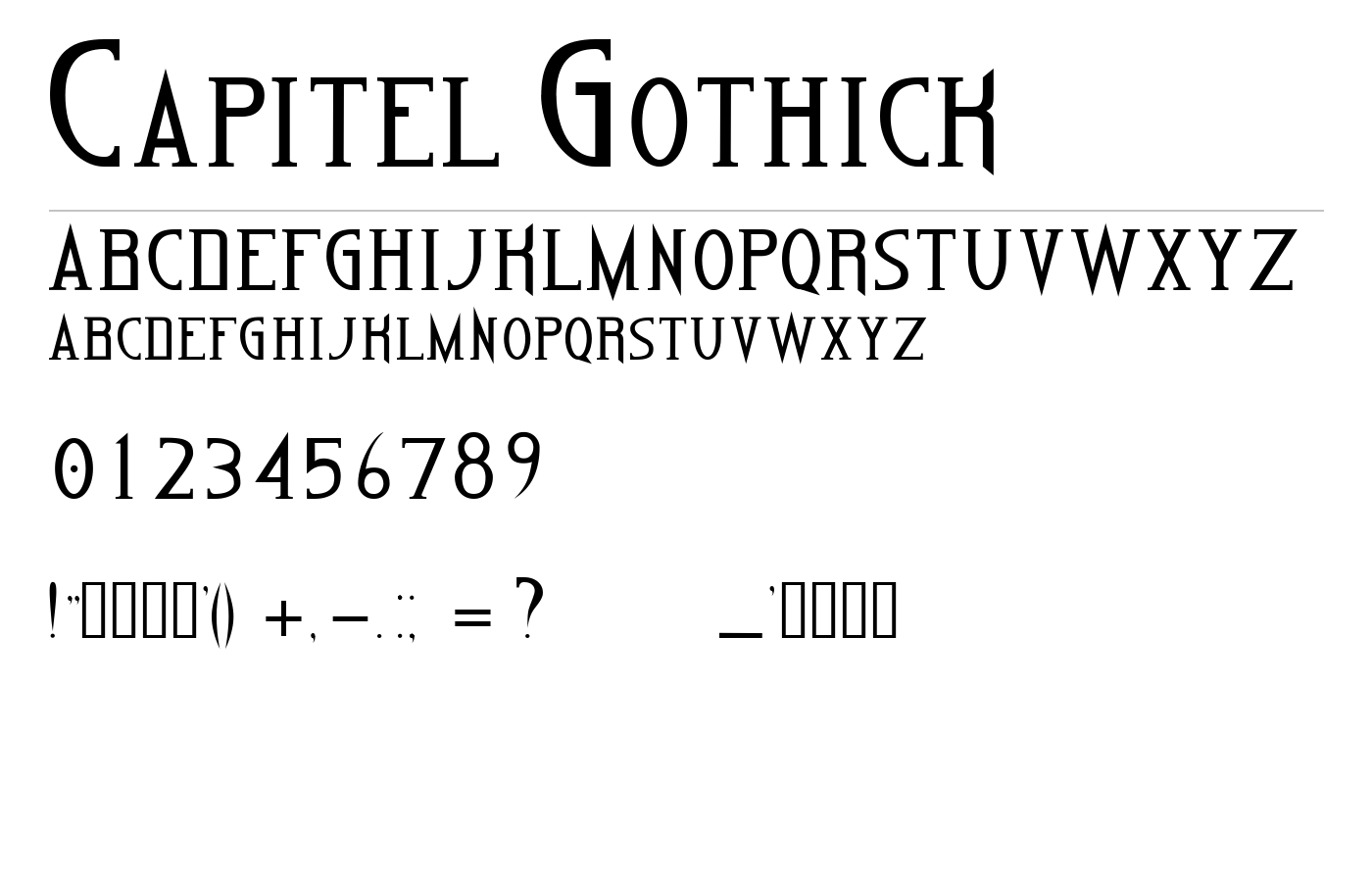
Capitel Gothick is a narrow serif font with a distinctive gothic flair, characterized by tall, slim letterforms and sharp, angular details that give it a dramatic and historic feel. Its medium stroke contrast and elegant vertical emphasis make it perfect for display use in branding, headlines, and editorial design where a sophisticated yet bold presence is desired. This font works particularly well for projects aiming to evoke a vintage, mystical, or refined atmosphere.
Capitel Gothick Font
About Capitel Gothick Font
| Font family | Capitel Gothick Font |
| Designer | Evgeniy Litvin |